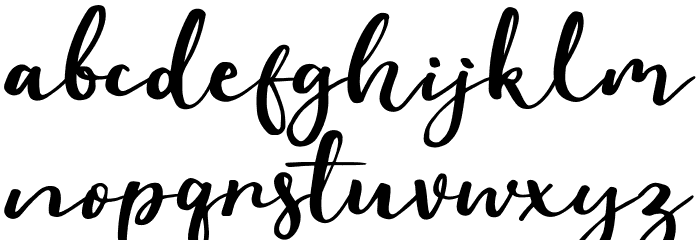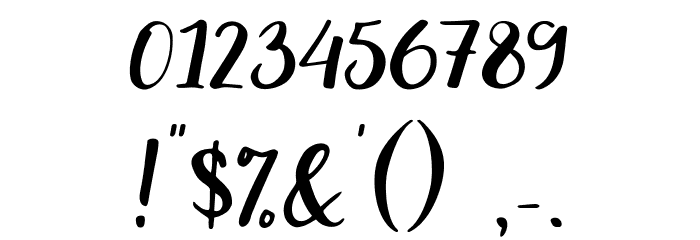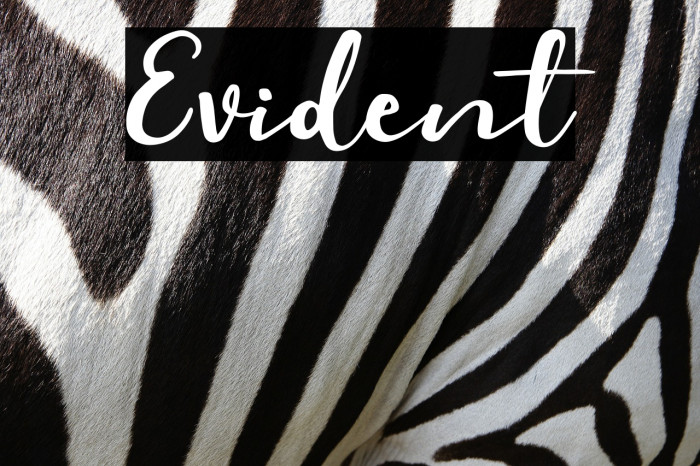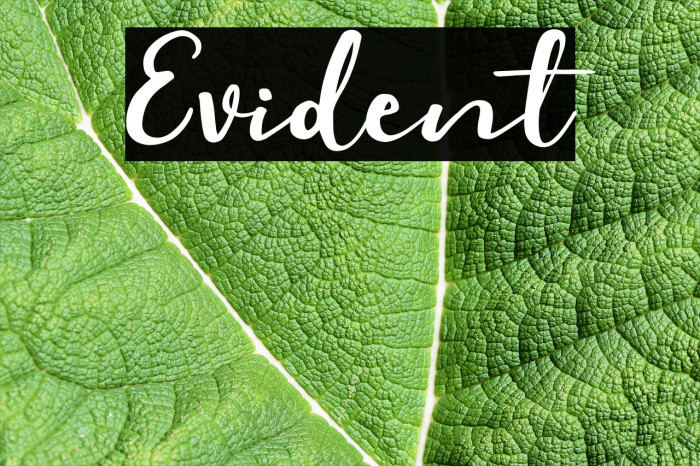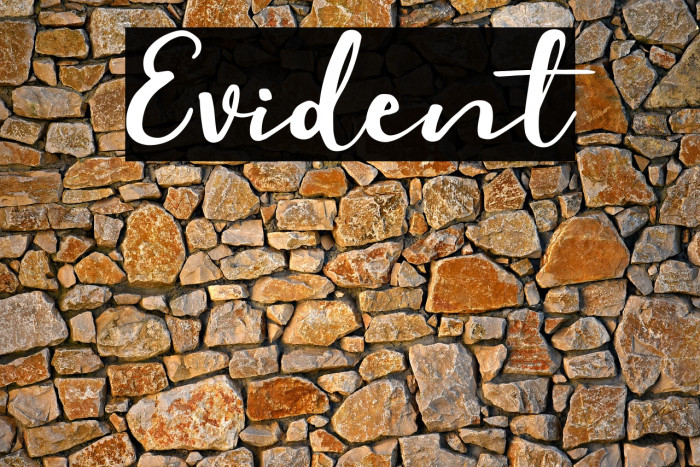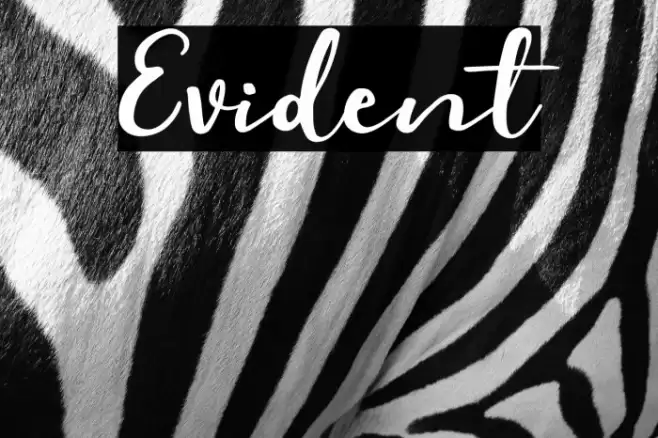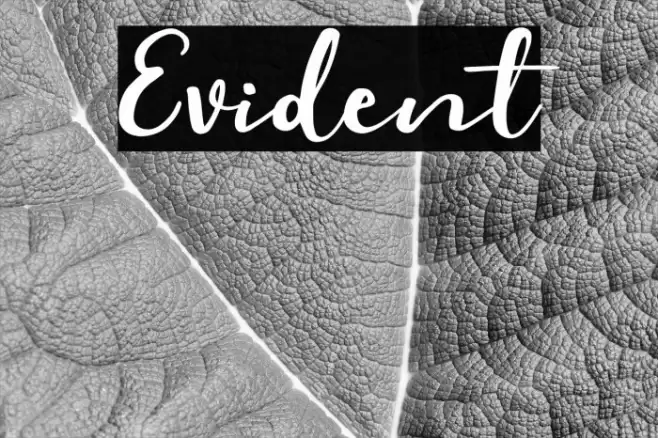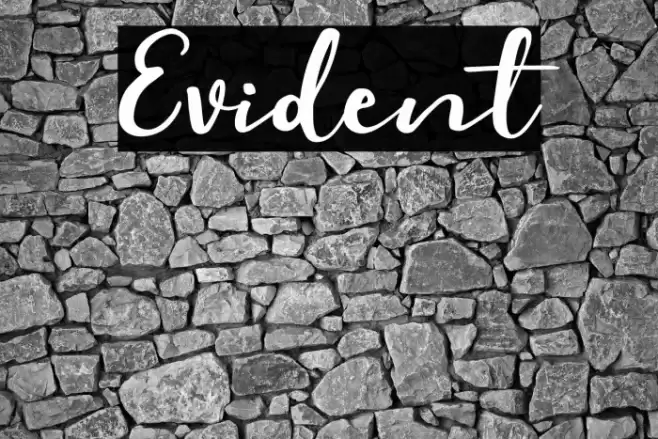
Evident Font
This font features a flowing, cursive style with elegant, sweeping strokes that give it a handwritten appearance. The uppercase letters are bold and expressive, with a slight slant that adds a dynamic feel. Lowercase letters maintain a consistent flow, enhancing readability while preserving the artistic flair. Numbers and special characters are crafted with the same attention to detail, ensuring a cohesive look across all elements. The overall design is both sophisticated and approachable, making it suitable for a variety of creative applications.
A bold, cursive font with elegant, flowing strokes and a handwritten style.
- Proposed Projects: Ideal for wedding invitations, greeting cards, branding, and logo design.
- Use Case: Logos, Invitations, Decorative text